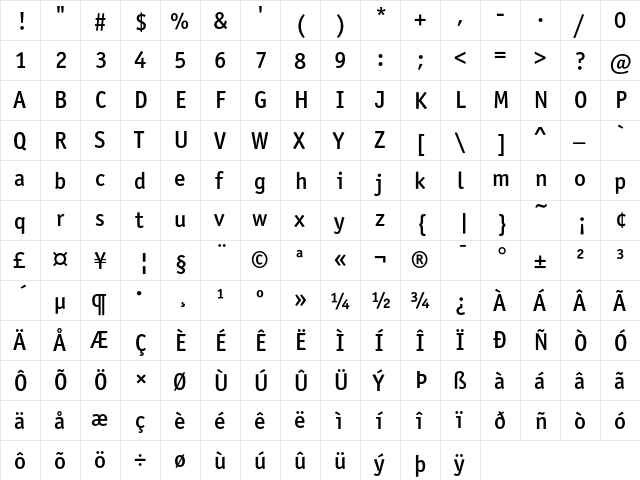
OfficinaSansITC Medium Font Preview
OfficinaSansITC Medium
Design Context for OfficinaSansITC Typeface
OfficinaSansITC is a composed and adaptable typeface that performs quietly and consistently across a wide range of design contexts.
Pro Tip: Use OfficinaSansITC in both headline and body roles to test its range before committing to a single application.